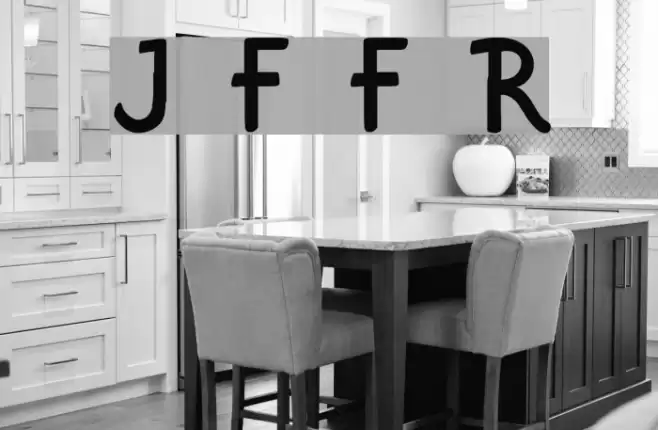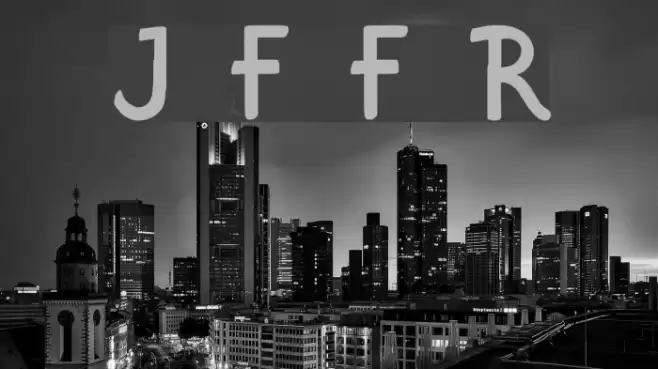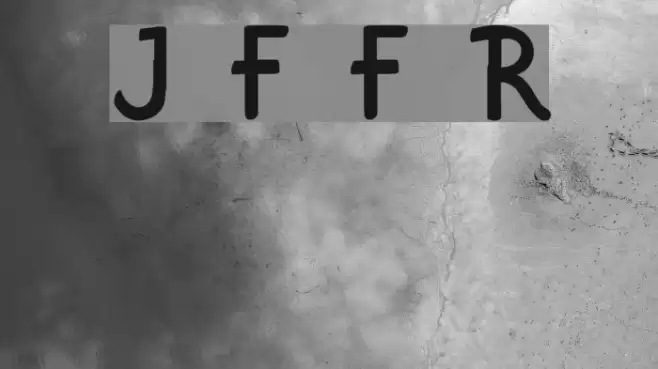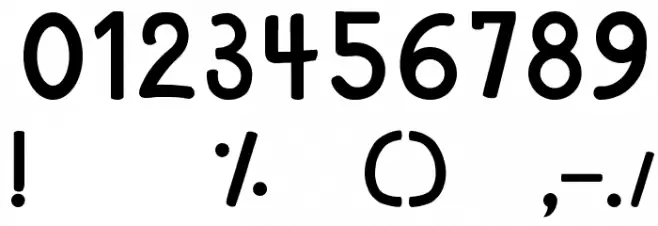
Just For Fun Regular Font
Just For Fun Regular Description
This playful and whimsical font features a bold, rounded style with a hand-drawn appearance. The characters are slightly irregular, adding a sense of fun and creativity. The uppercase letters are bold and prominent, while the numbers and special characters maintain a consistent, playful design. The font's unique style makes it suitable for projects that require a touch of humor and lightheartedness. Its bold strokes and rounded edges give it a friendly and approachable feel, perfect for children's books, comic strips, or playful branding.
A playful, hand-drawn font with bold, rounded characters from Cartoon fonts.
- Proposed Projects: Ideal for children's books, comic strips, playful branding, and creative posters.
- Overall Style: Playful, Whimsical